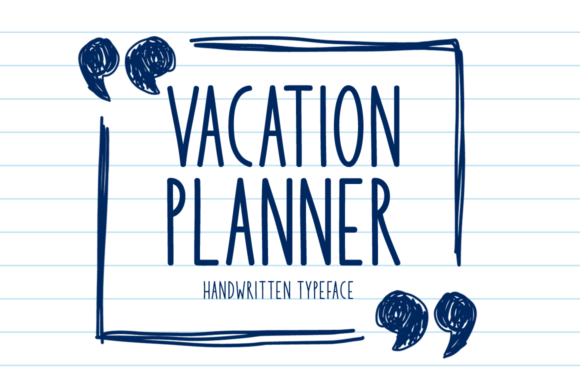
Prepare yourself for an astonishing typographic adventure with Vacation Planner Font, an extraordinary display font family that will captivate your audience and leave them spellbound. Inspired by the carefree spirit of summer getaways, this font exudes a sense of joy and wanderlust, making it the perfect choice for designers, crafters, and adventurers alike. Its casual and playful nature, reminiscent of carefree summer days, adds a touch of whimsy to any creative project.
With Vacation Planner Font, you'll embark on a journey of creative expression, exploring endless possibilities for logos, branding, social media designs, and DIY projects. Its unique brush pen strokes create a sense of authenticity and charm, evoking the feeling of handwritten messages sent from exotic destinations. Whether you're designing invitations for a tropical beach wedding or creating personalized travel journals, this font will add a touch of magic to your creations.
Unleash your creativity and let Vacation Planner Font be your guide. Its versatility and adaptability make it suitable for a wide range of projects, from eye-catching banners to heartfelt greeting cards. With its ability to evoke emotions and transport viewers to faraway lands, this font will turn your designs into captivating visual stories that resonate with your audience.
Discover the endless possibilities of Vacation Planner Font today and embark on an unforgettable creative journey. Embrace the spirit of adventure, let your imagination soar, and create designs that leave a lasting impression.